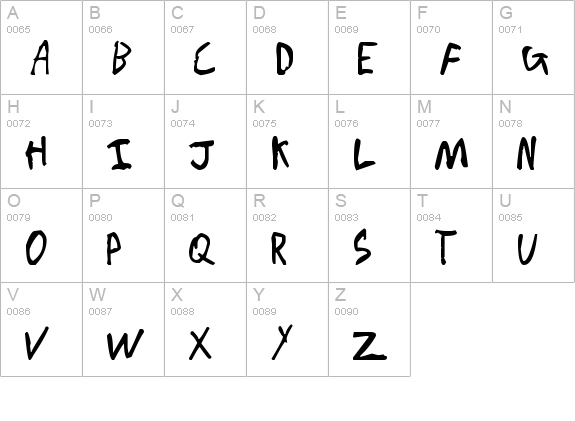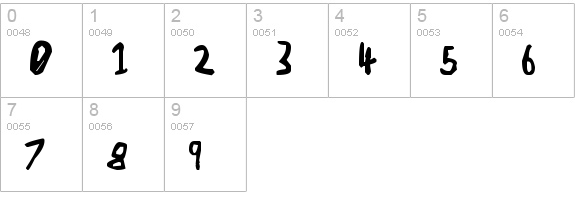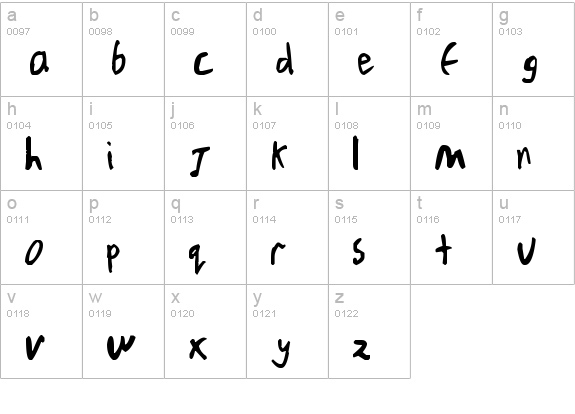
Chicken Scratch Font Details
Introducing Chicken Scratch font, a charming and whimsical typeface perfect for adding a playful touch to your projects. This handwritten font captures the essence of casual creativity, with its uneven lines and quirky flair. Whether you're designing a fun invitation, crafting a cheerful greeting card, or adding a personal touch to your branding, Chicken Scratch font is sure to delight. Best of all, Chicken Scratch font is available for free download at FontsMarket.com. Embrace the carefree spirit of this font and let your creativity soar with its unique style. Add a touch of whimsy to your designs with Chicken Scratch font today!